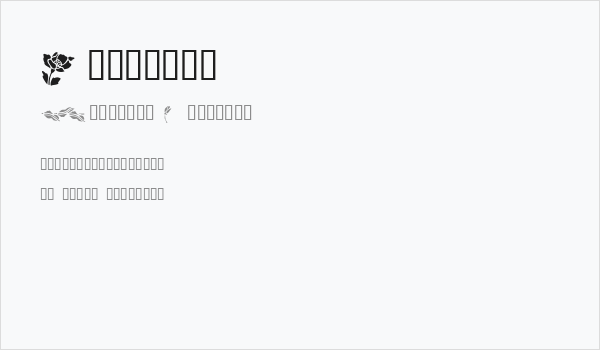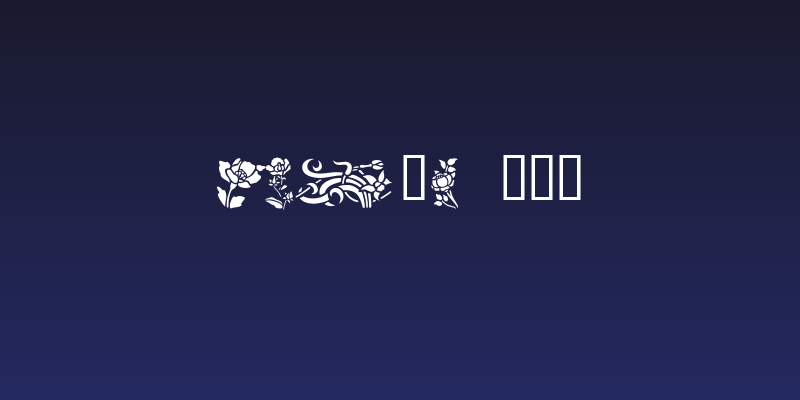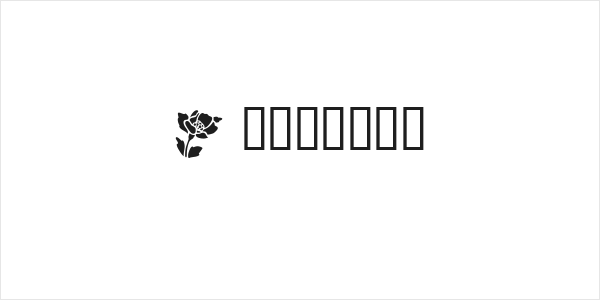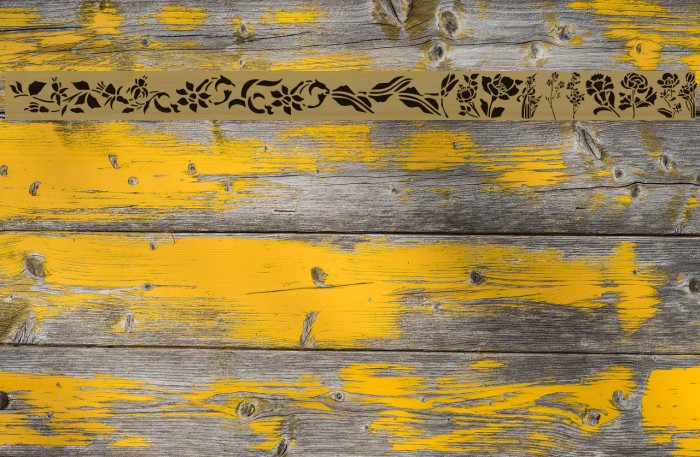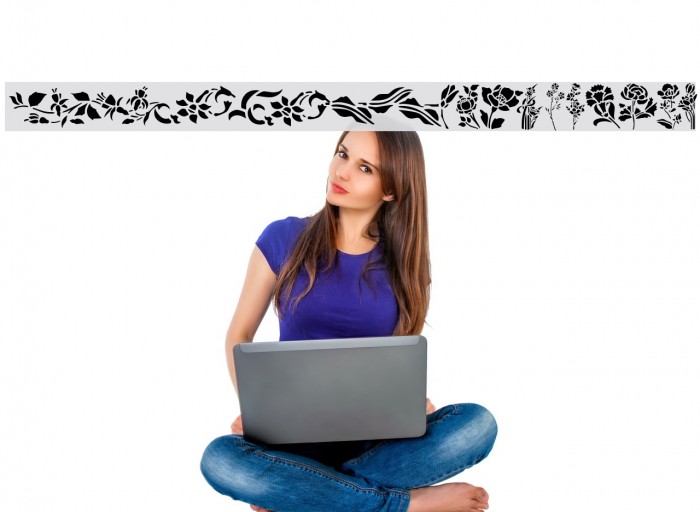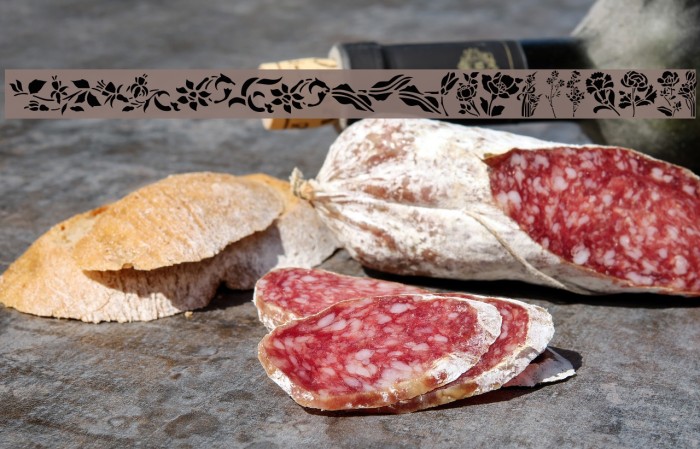
Flowers2 Font
Flowers2 Description
This is a decorative font featuring intricate floral designs. Each character is adorned with elegant flower motifs, creating a harmonious blend of typography and nature. The font is highly ornamental, making it ideal for projects that require a touch of sophistication and artistry. The floral elements are detailed and varied, adding a unique flair to each letter. This font is perfect for creative projects where visual impact is key, such as invitations, greeting cards, and artistic branding. The overall style is both classic and whimsical, offering a timeless appeal.
| Proposed Projects | Ideal for invitations, greeting cards, artistic branding, and decorative projects. |